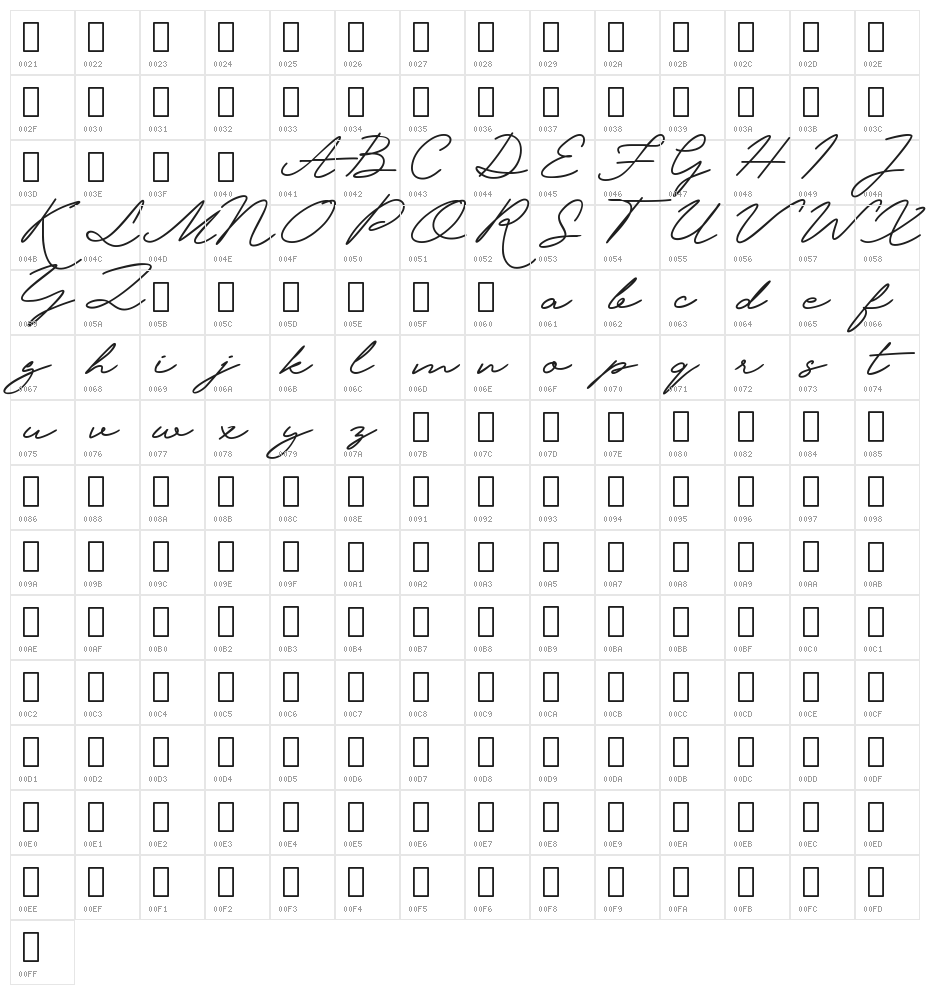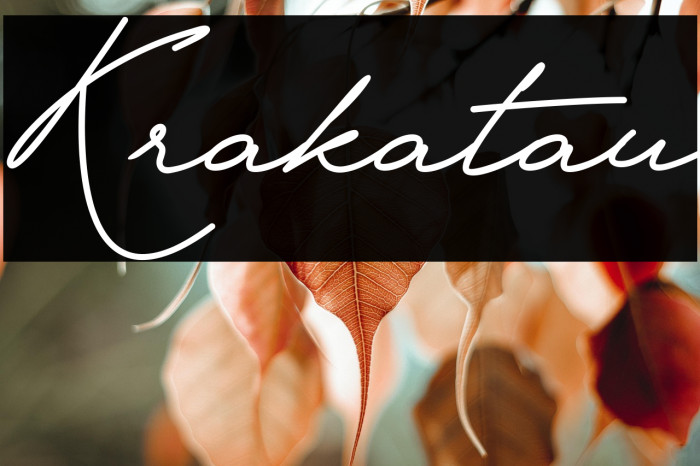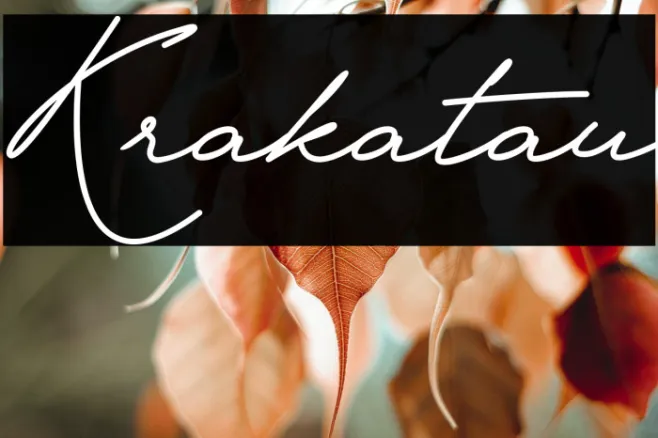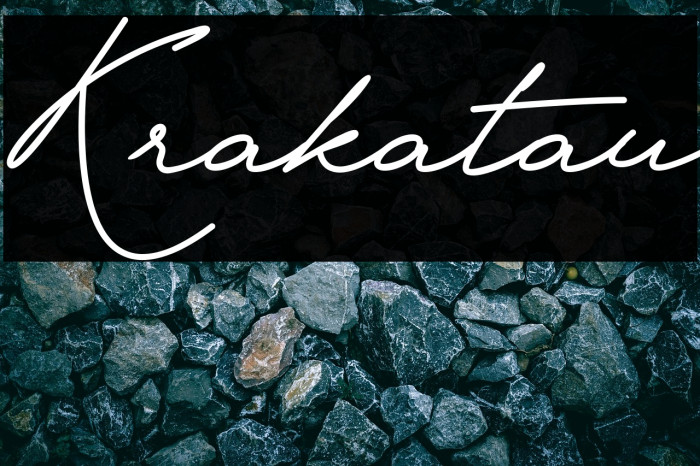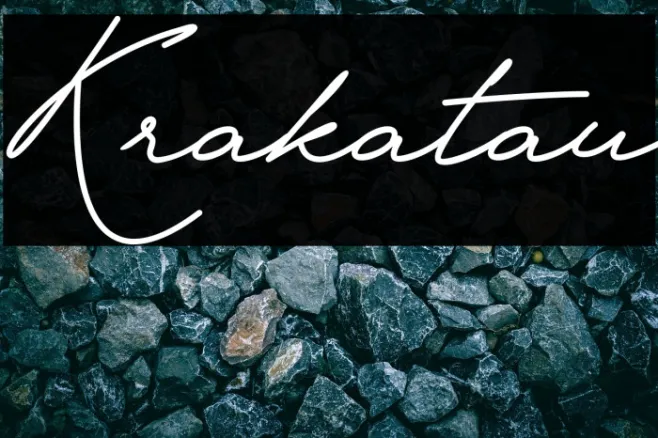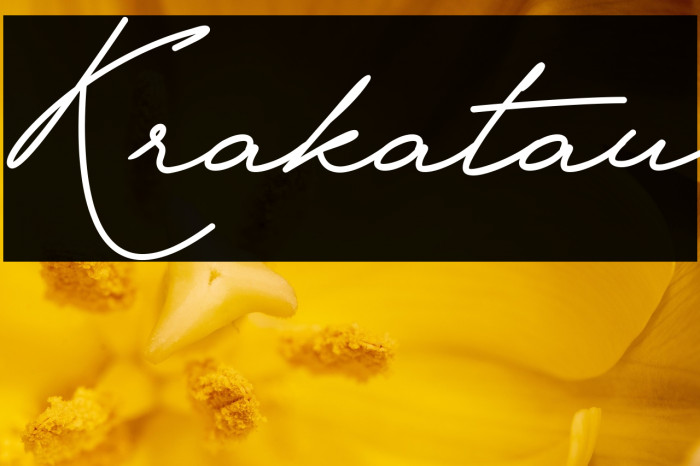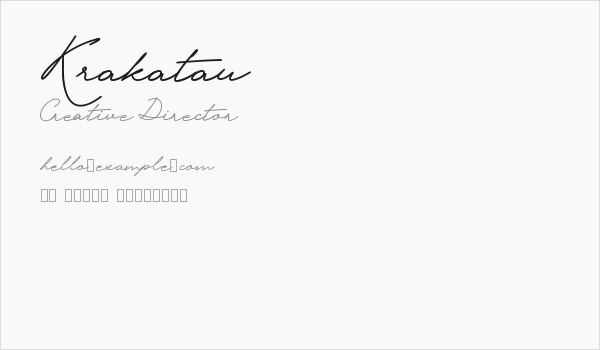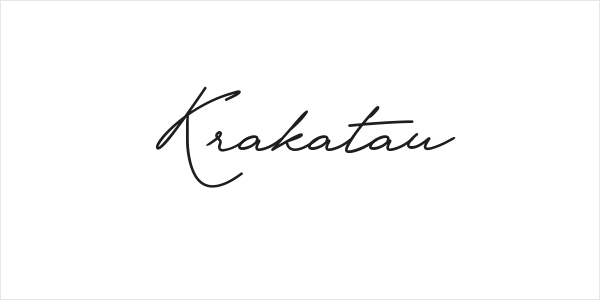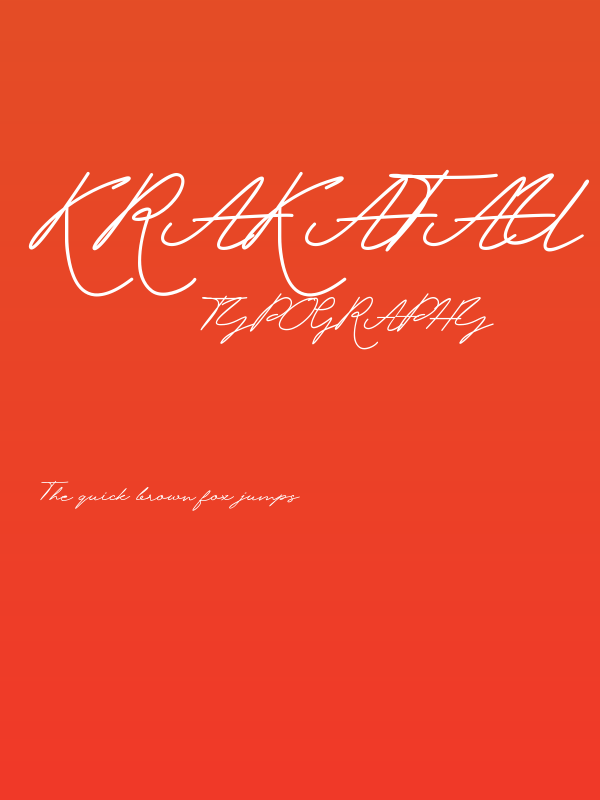
Krakatau Font
Krakatau Description
This elegant script font features a flowing, cursive style that mimics natural handwriting. The uppercase letters are gracefully connected, while the lowercase letters maintain a consistent slant, enhancing the font's fluidity. The strokes are smooth and continuous, with a slight variation in thickness that adds a touch of sophistication. This font is ideal for projects that require a personal, handwritten touch, such as invitations, greeting cards, or branding materials. Its refined appearance makes it suitable for both formal and casual applications.
| Use Case | Headlines, Invitations, Branding |
| Proposed Projects | Ideal for wedding invitations, greeting cards, personal branding, and elegant stationery. |